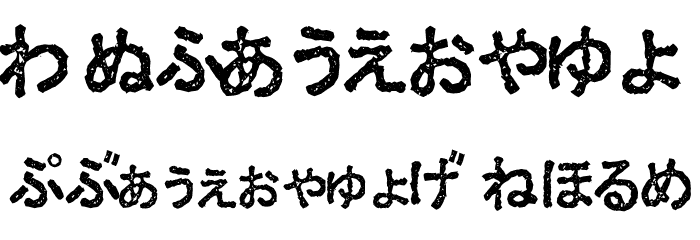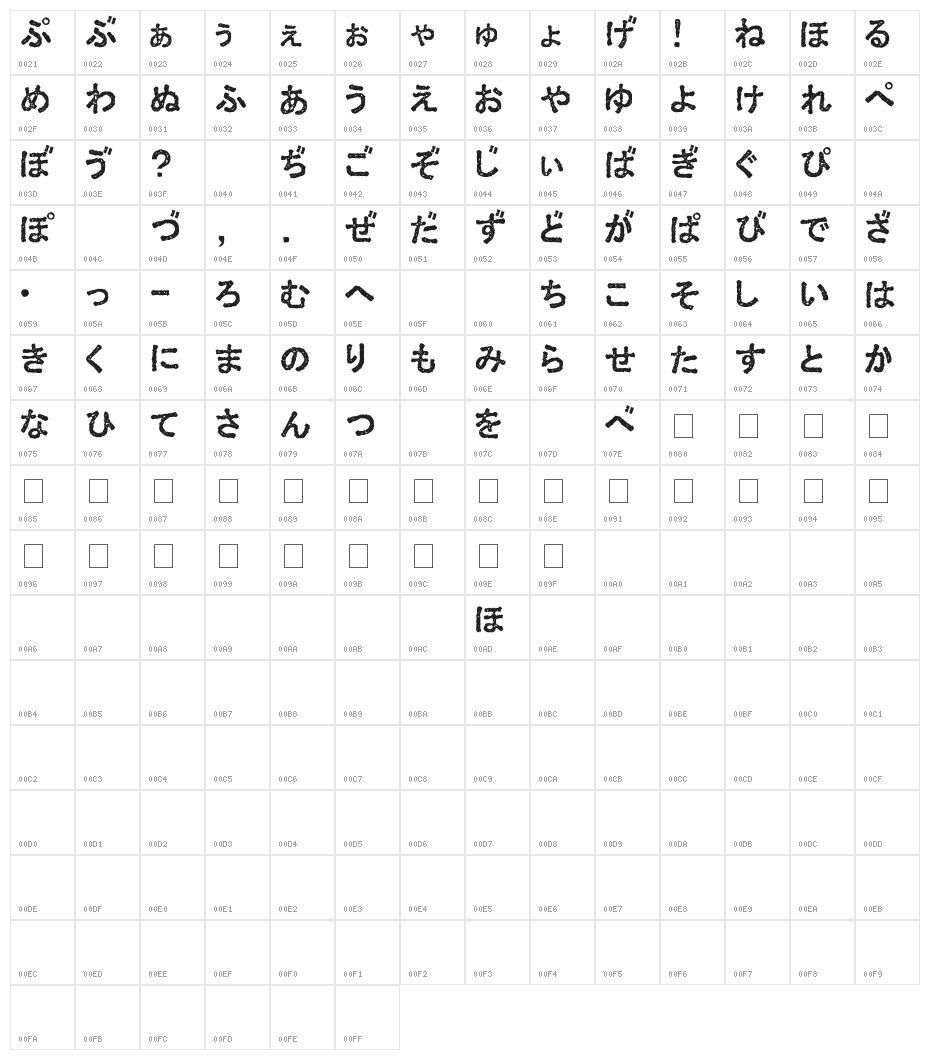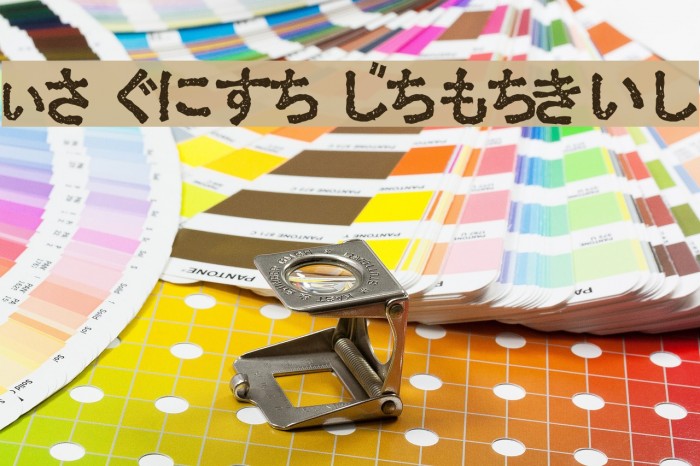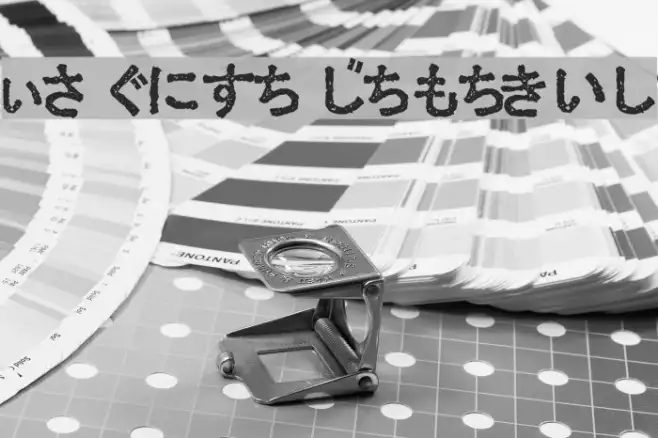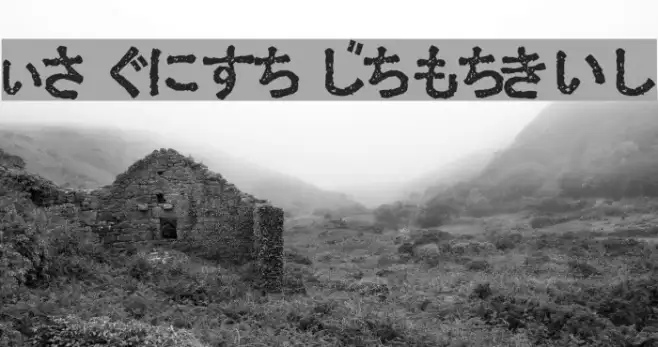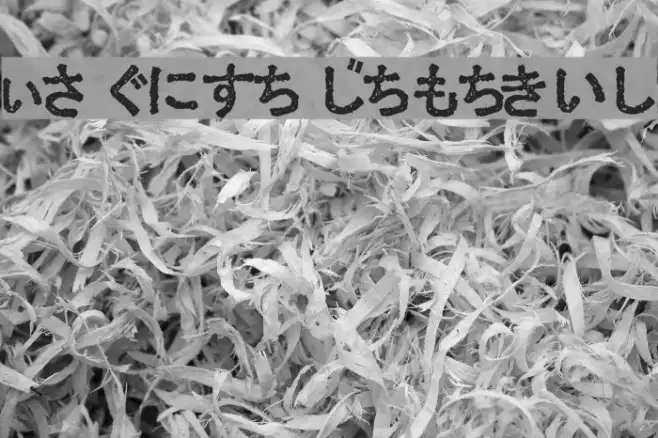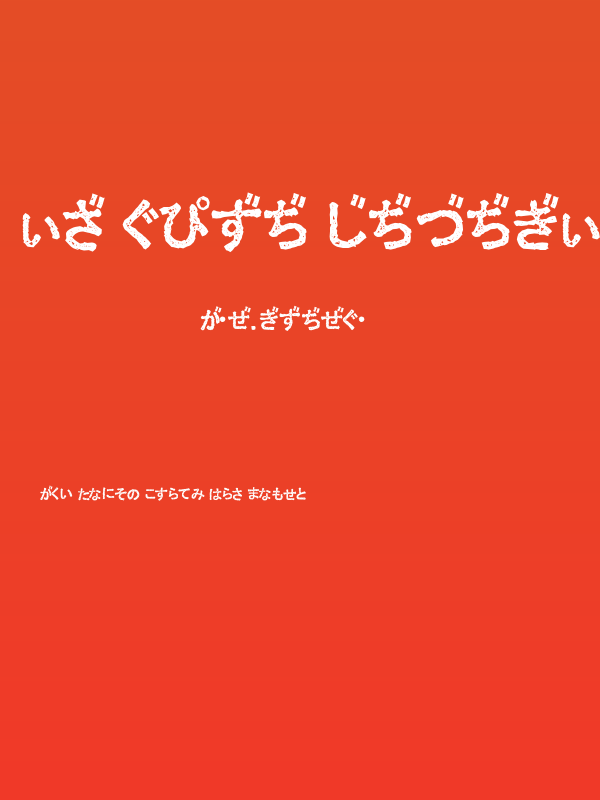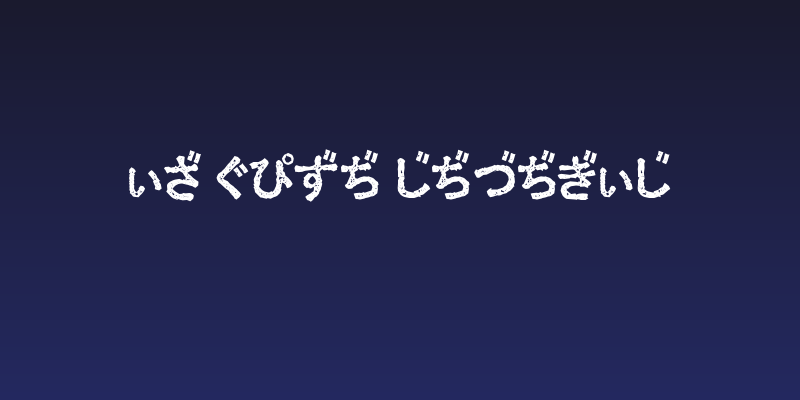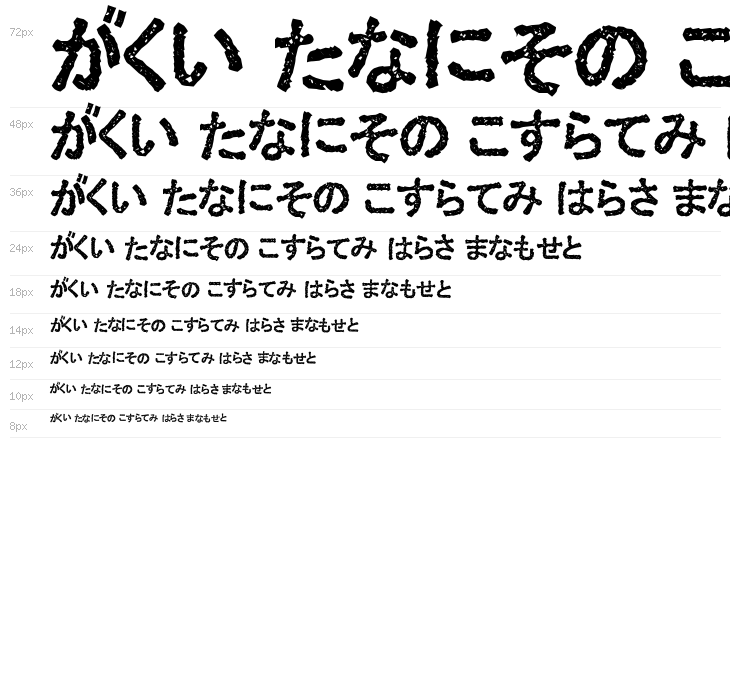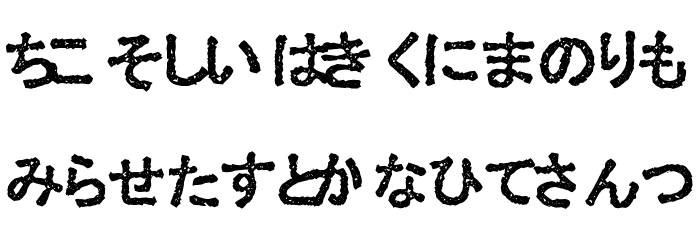
Ex Hira Damaged Font
Ex Hira Damaged Description
This font features a distressed, textured appearance, giving it a unique, worn-out look. The characters are bold and have a rough, uneven edge, reminiscent of a vintage or grunge style. The texture adds depth and character, making it stand out in any design. The font maintains a consistent weight throughout, with a medium contrast in stroke thickness. The spacing between characters is normal, ensuring readability while maintaining its distinctive style.
Overall StyleVintage
Proposed ProjectsIdeal for projects that require a vintage or grunge aesthetic, such as posters, album covers, or themed event invitations.